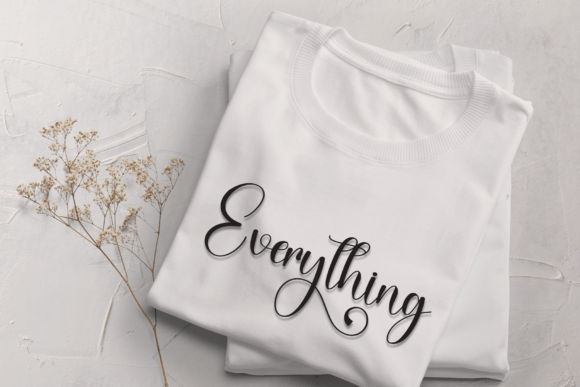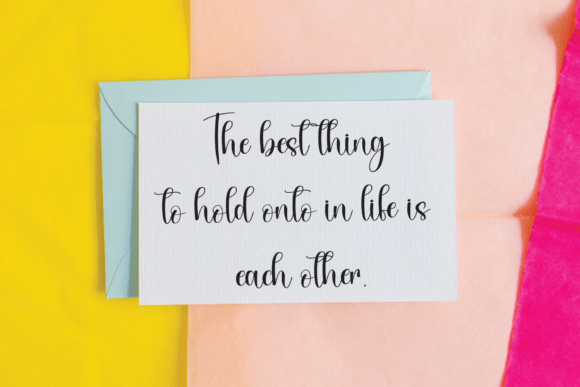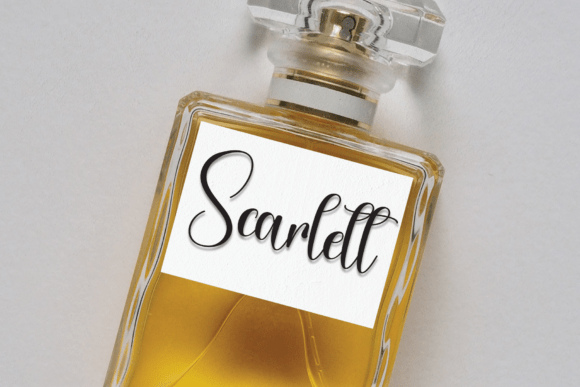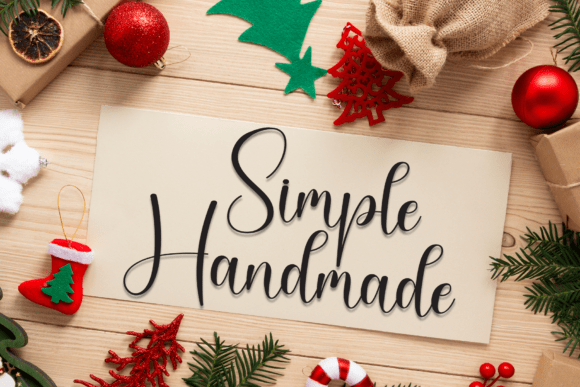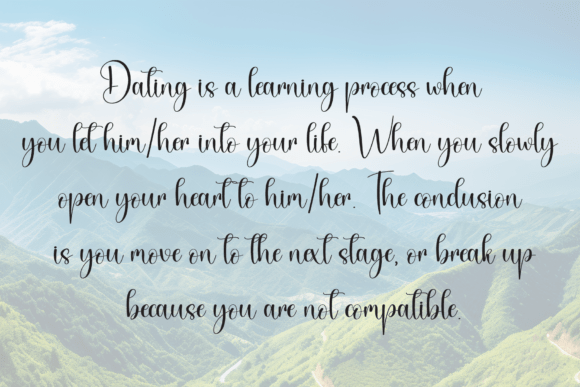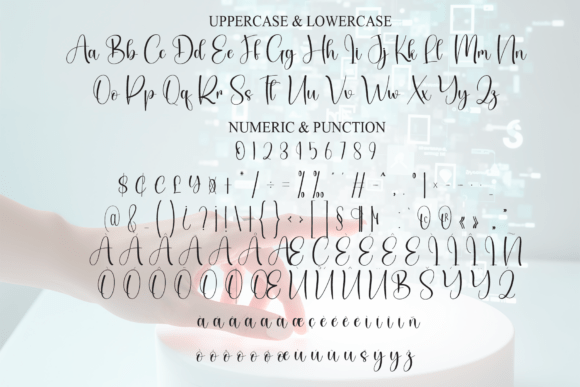
Introducing Digital: The Ultimate Stylish Handwritten Script Font
In the world of typography, a good font can make all the difference in the success of a design project. Whether you’re a professional designer, crafty DIY enthusiast, or social media influencer, finding the right typeface can elevate your brand, invitation, or post to new heights. That’s where Digital comes in – a stunning handwritten script font that effortlessly blends elegance with a modern twist.
The Charm of Digital
Digital is more than just a font – it’s an experience. Its flowing strokes and organic curves bring a sense of warmth and sophistication to any project, making it perfect for those looking to add a personal touch to their designs. With Digital, you can create beautiful, refined, and eye-catching typography that captures the essence of your brand or message.
Key Features of Digital
- Elegant and Modern: Digital combines classic elegance with a modern flair, making it suitable for a wide range of design projects.
- Handwritten Script: The font’s handwritten script style adds a personal touch to any design, making it perfect for branding, invitations, and social media posts.
- Flowing Strokes and Organic Curves: Digital’s flowing strokes and organic curves bring warmth and sophistication to any project.
- Versatile: This typeface is ideal for various design projects, including logos, invitations, social media graphics, and more.
Digital is an excellent choice for designers and crafters looking to add a touch of elegance and sophistication to their projects. Whether you’re creating:
- Branding Materials: Use Digital to create stunning logos, business cards, and letterheads that reflect your brand’s personality.
- Invitations: Add a personal touch to your invitations, whether it’s a wedding, birthday, or baby shower.
- Social Media Graphics: Elevate your social media posts with beautiful, eye-catching typography that captures your audience’s attention.
Why Choose Digital?
With so many fonts available, why choose Digital? Here are just a few reasons:
- Unique and Distinctive: Digital’s elegant and modern style sets it apart from other fonts, making it perfect for those looking to stand out.
- Easy to Read: Despite its elegant style, Digital is highly legible, making it suitable for body text and headlines.
- Highly Versatile: This typeface can be used for a wide range of design projects, from print to digital.
Tips for Using Digital
To get the most out of Digital, here are some tips:
- Experiment with Font Sizes: Digital looks great in various font sizes, from large headlines to smaller body text.
- Play with Colors: This typeface pairs well with a range of colors, from bold and bright to soft and pastel.
- Mix and Match: Combine Digital with other fonts to create a unique and eye-catching typography.
Digital is a stunning handwritten script font that brings elegance and sophistication to any design project. With its flowing strokes, organic curves, and modern flair, this typeface is perfect for designers, crafters, and social media enthusiasts looking to add a personal touch to their creations. Whether you’re creating branding materials, invitations, or social media graphics, Digital is the perfect choice.